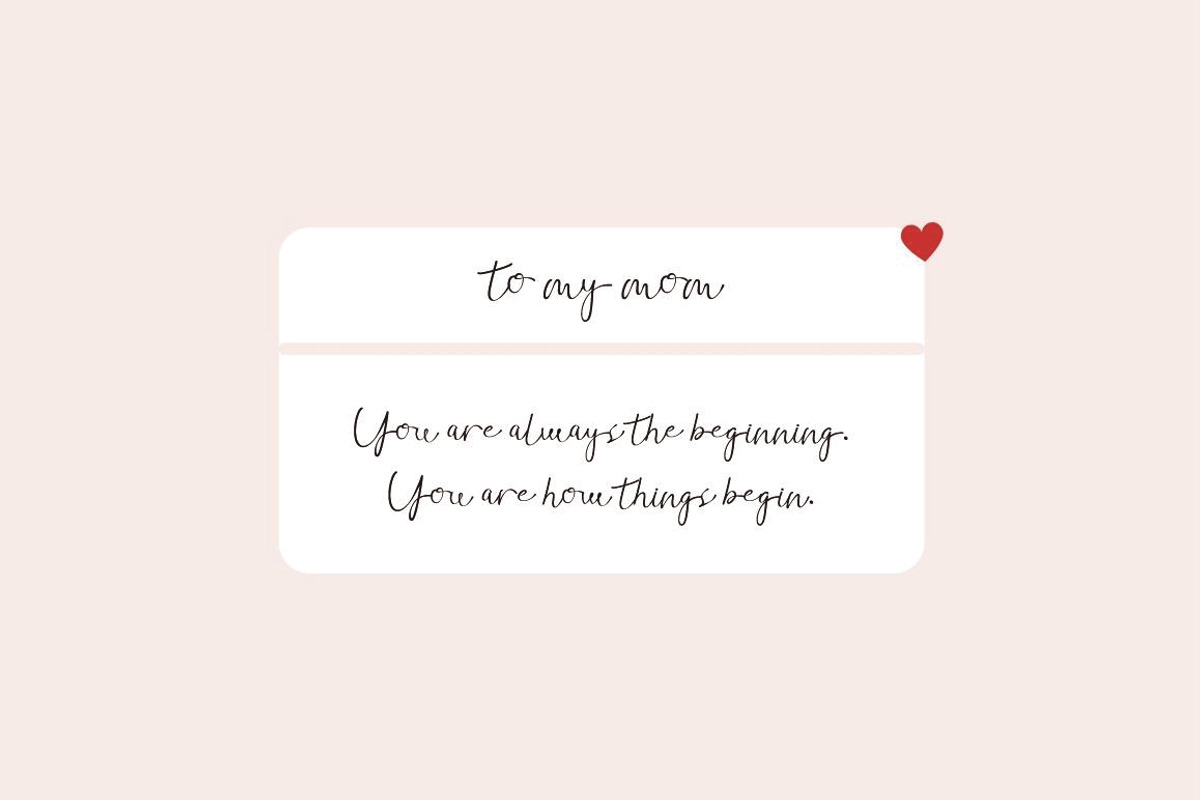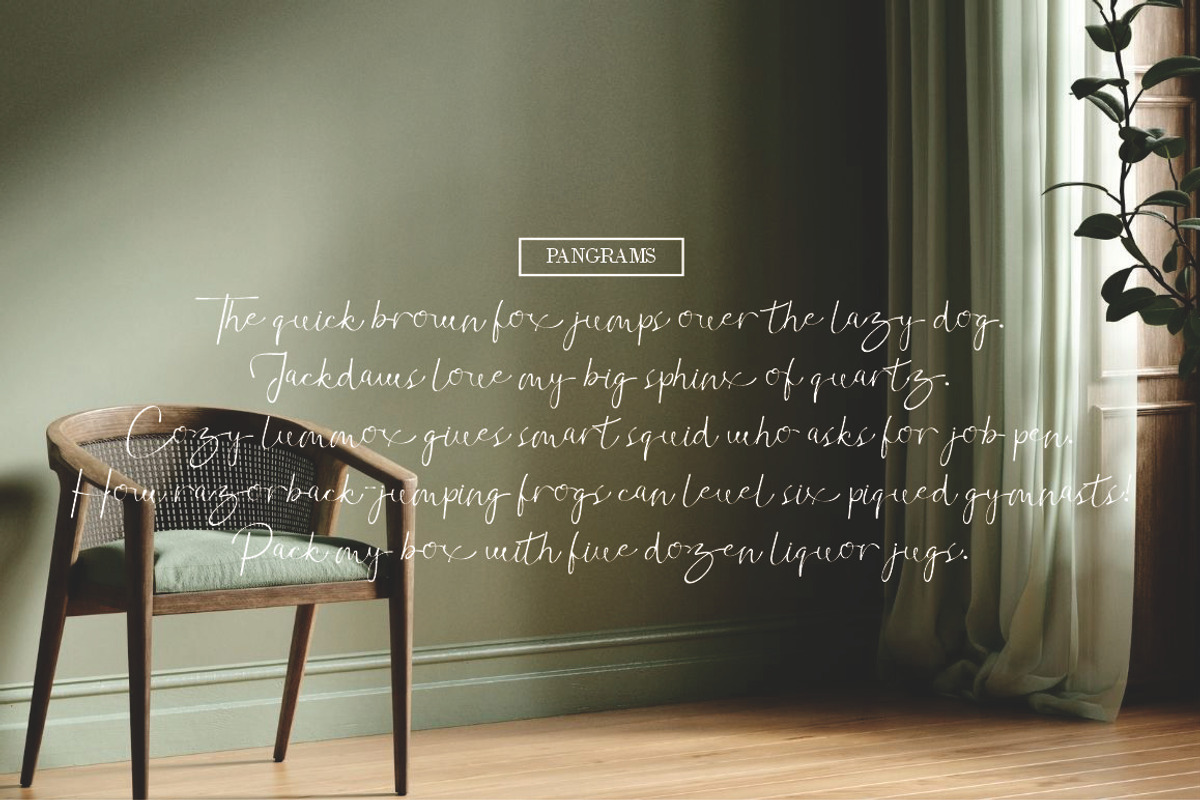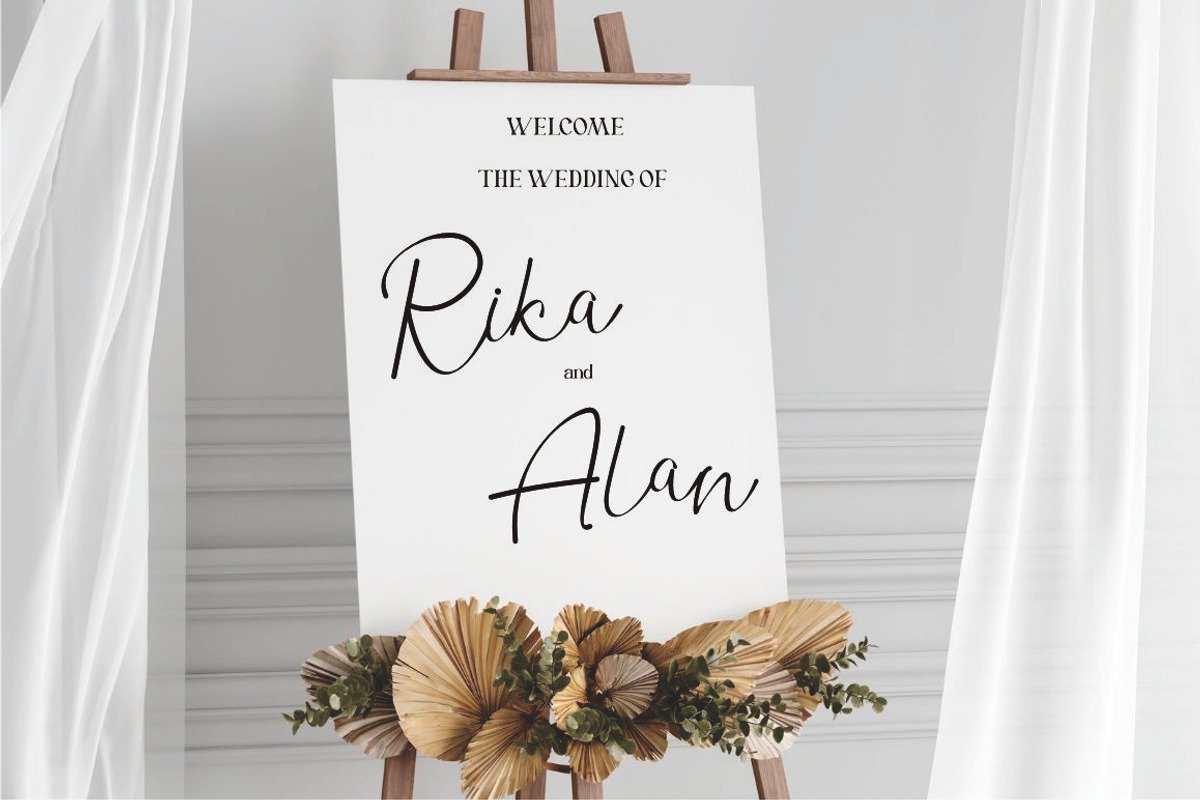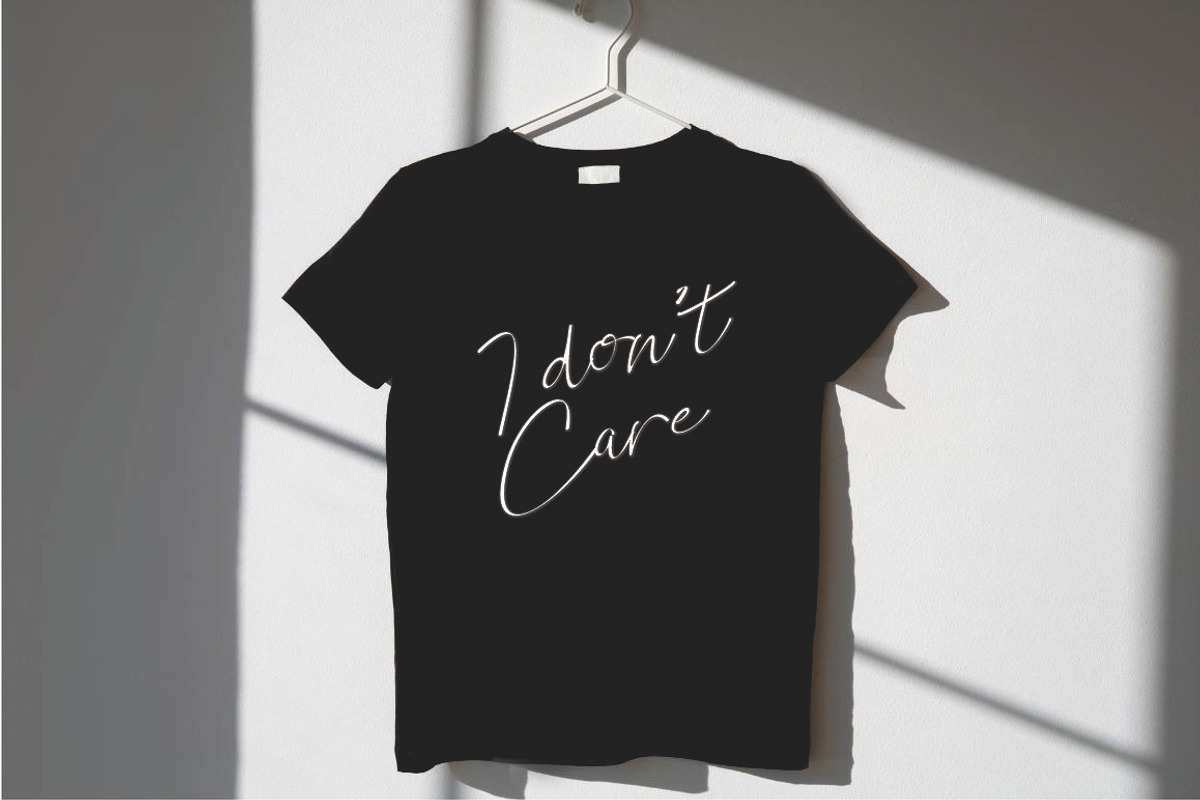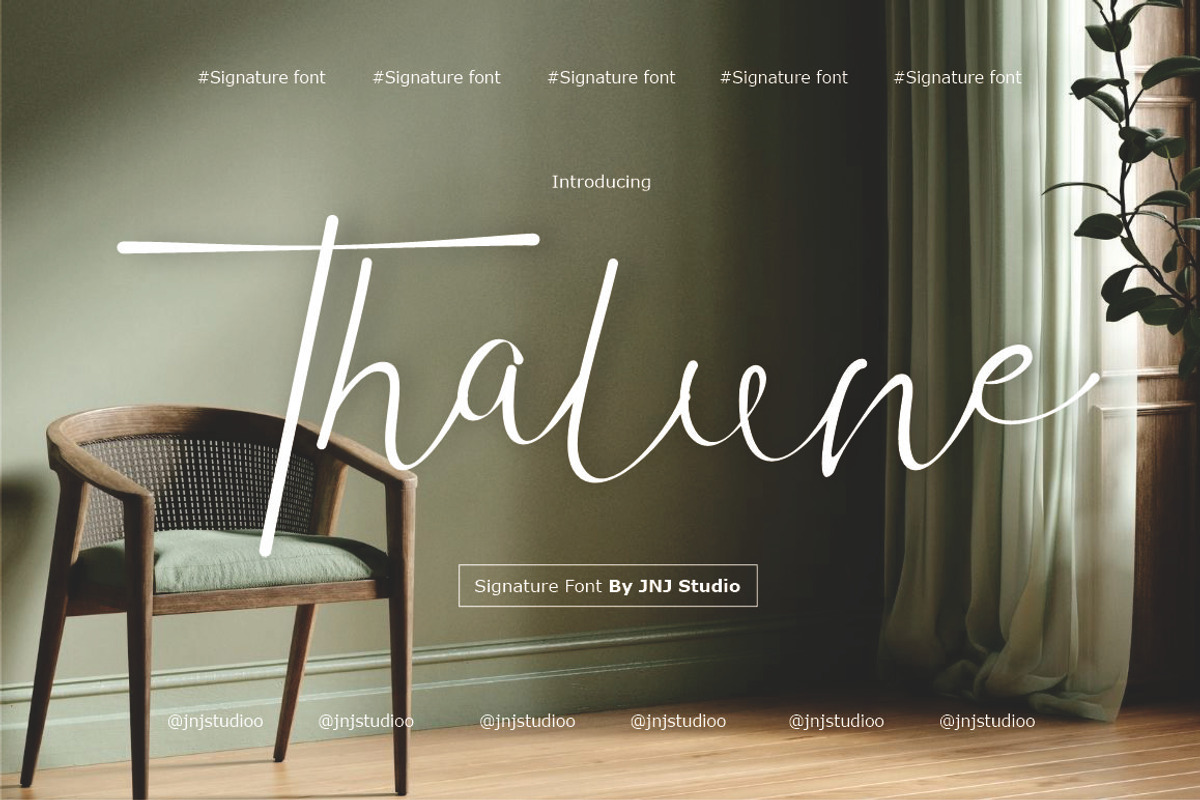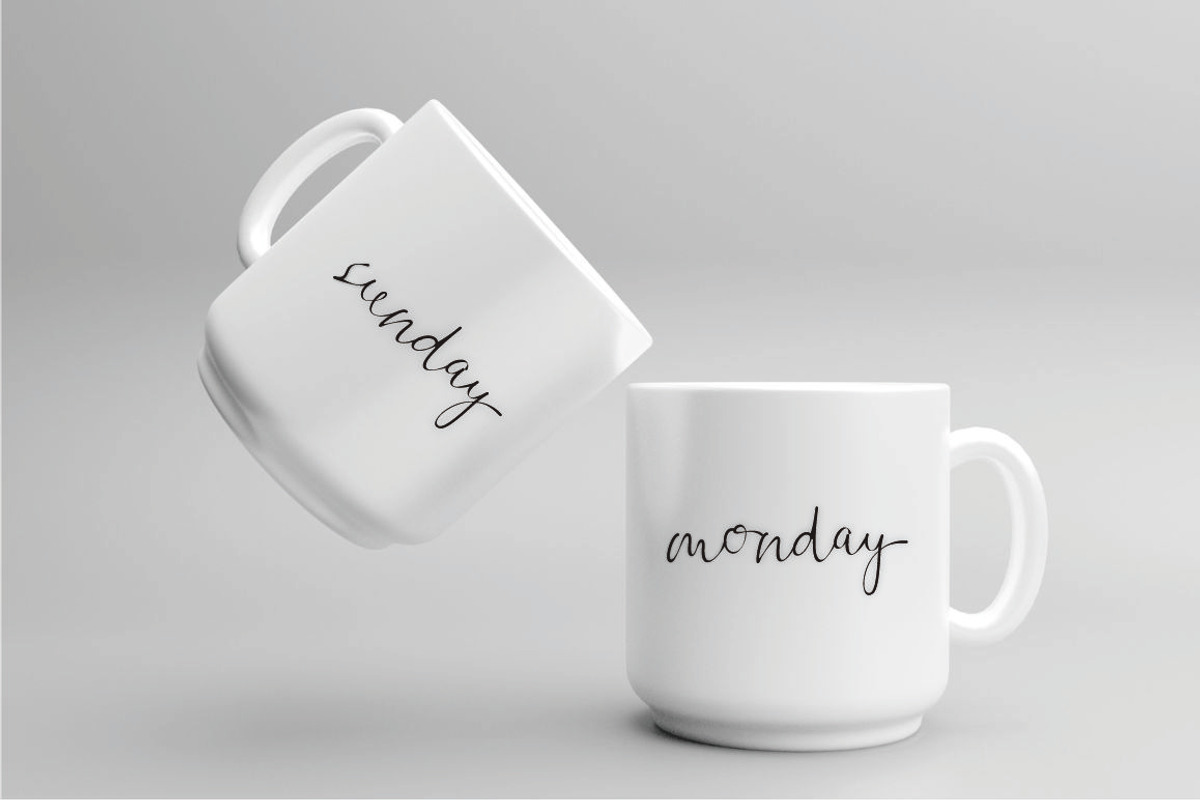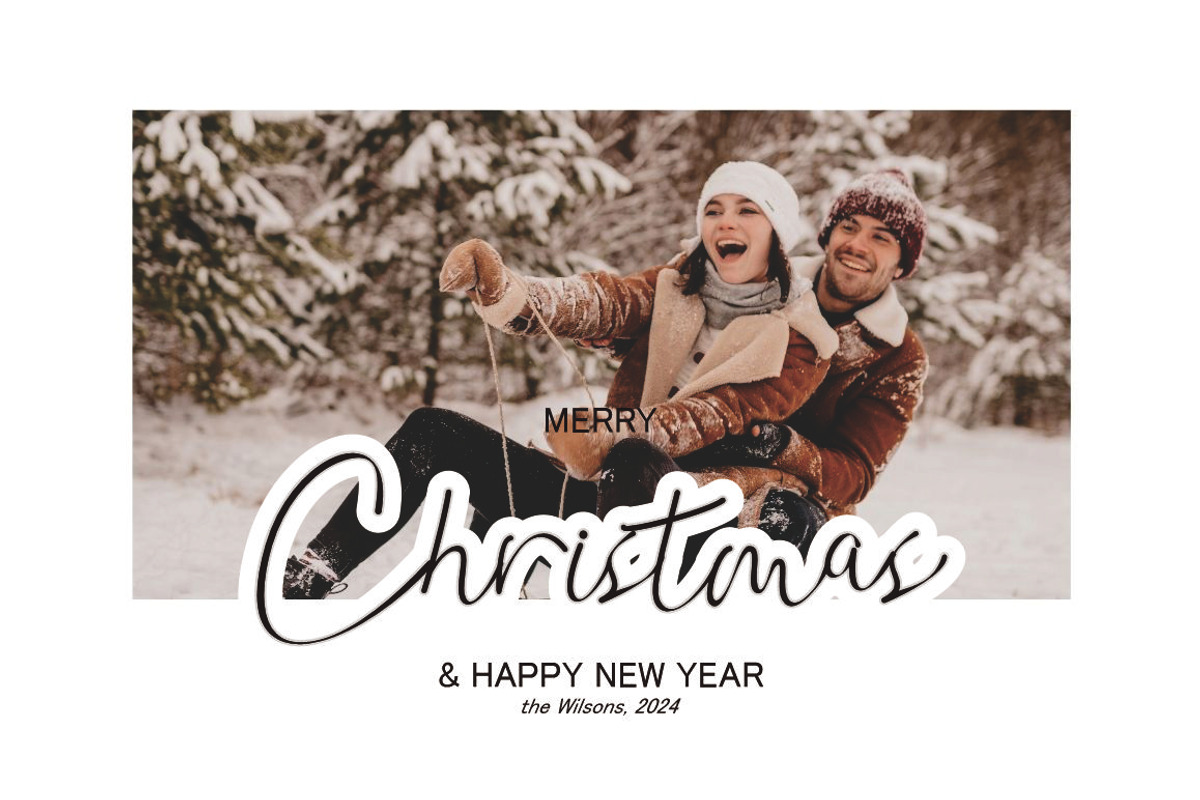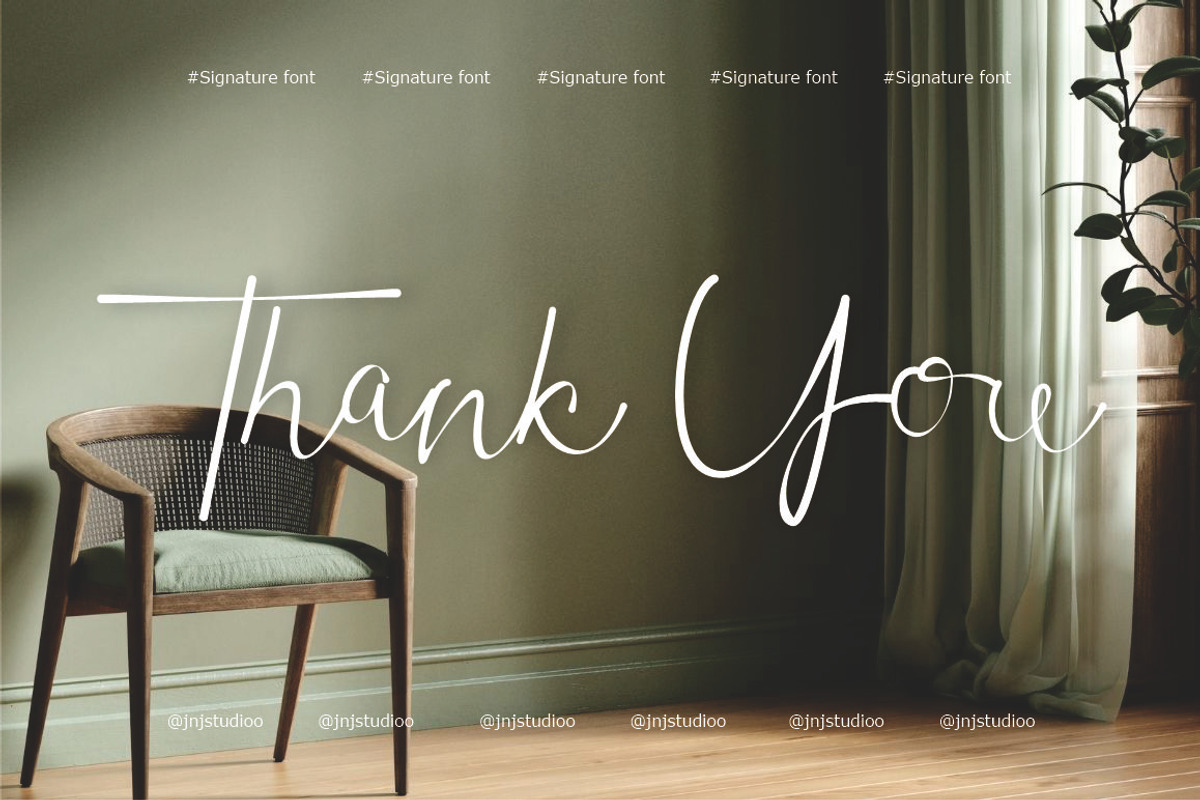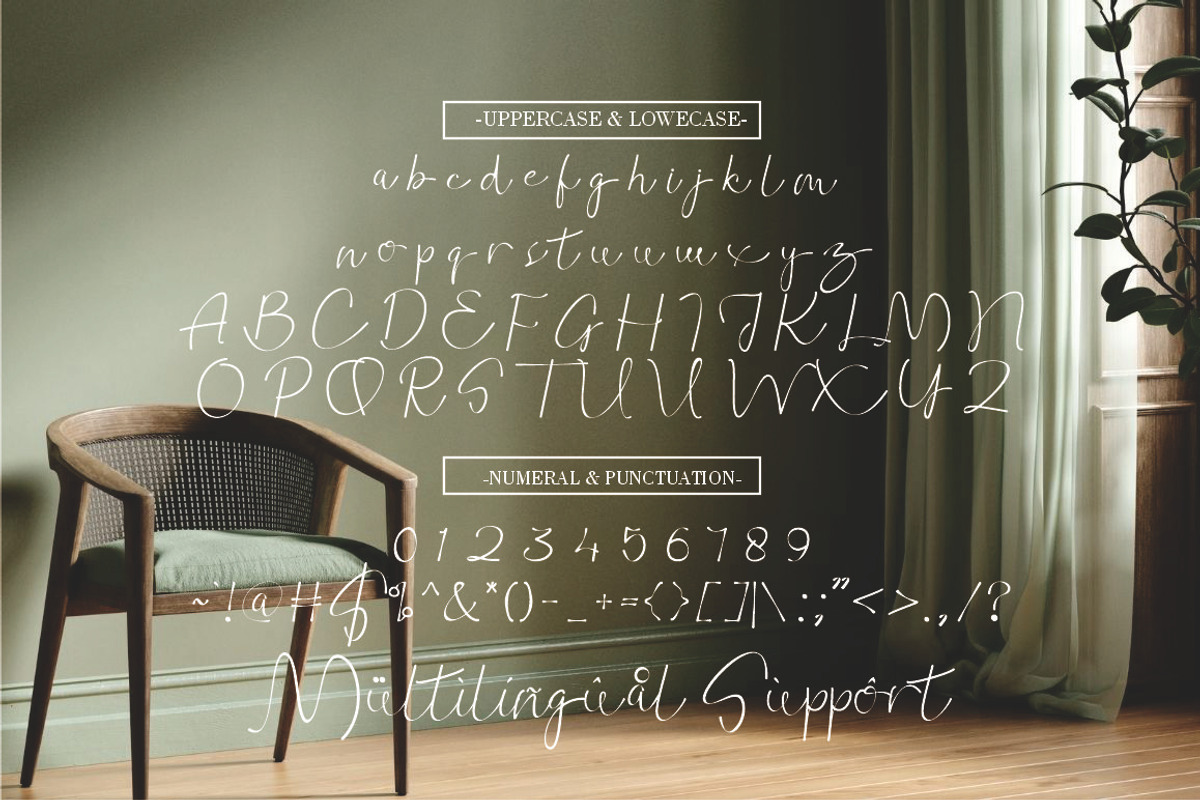
Thalune Script Font
Thalune is a sleek and elegant script font designed to bring a touch of sophistication and charm to any project. Its flowing, handcrafted strokes create a sense of effortless grace, making it perfect for logos, invitations, branding, packaging, and social media graphics.
With its modern yet timeless style, Thalune is versatile enough to suit both casual and formal designs. Its smooth curves and balanced letterforms ensure readability while maintaining a delicate, artistic appeal. Whether you're crafting a heartfelt message or elevating your brand identity, Thalune adds a personal and creative touch to your work.